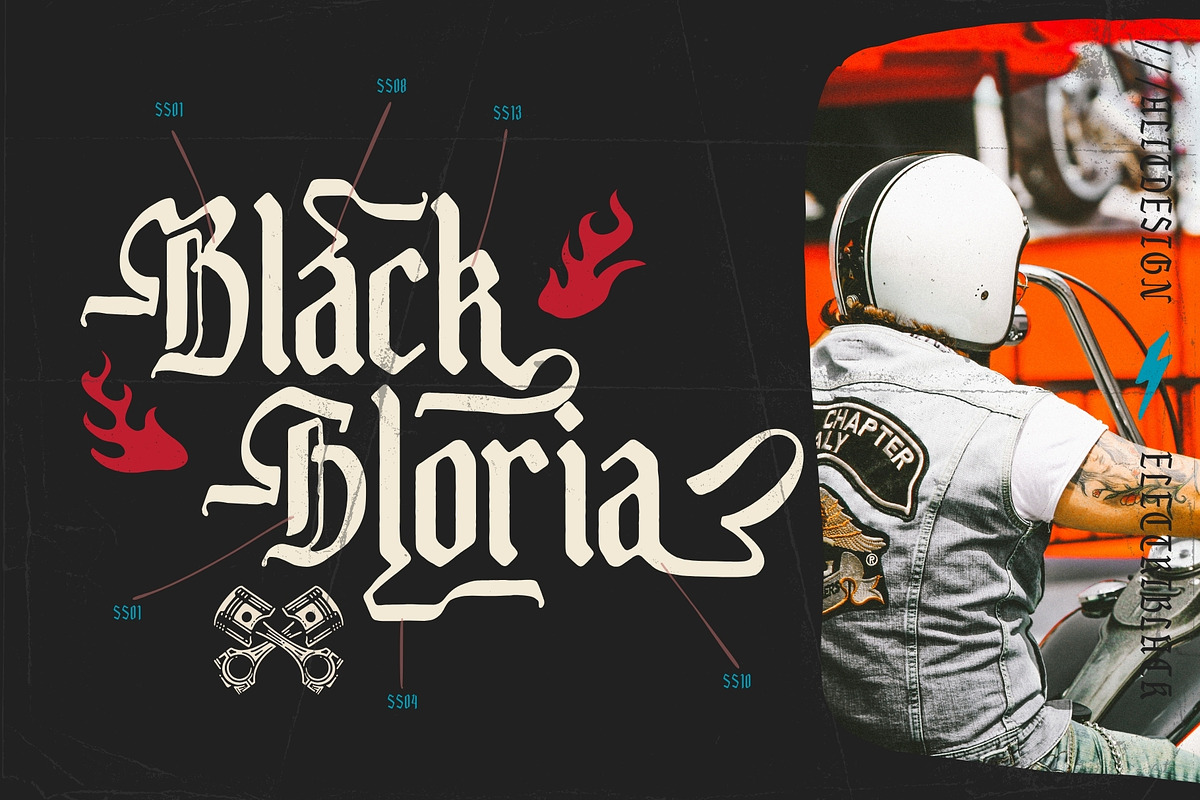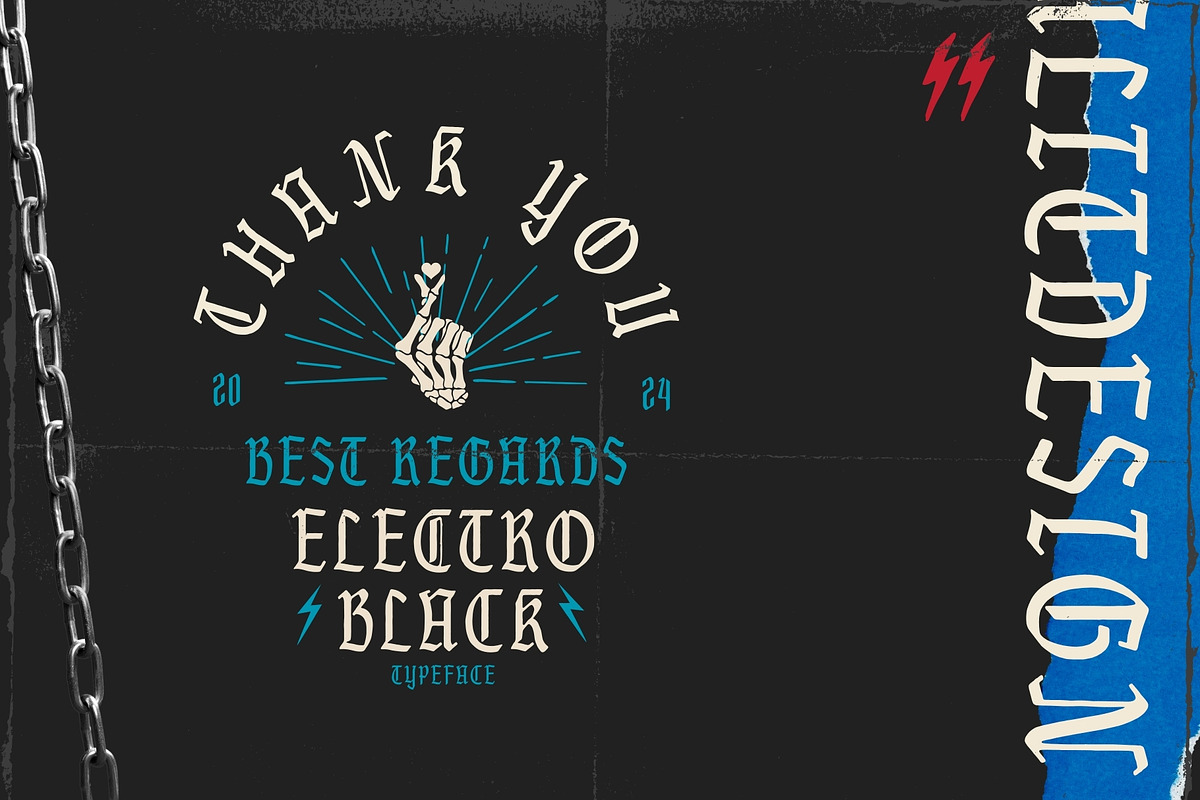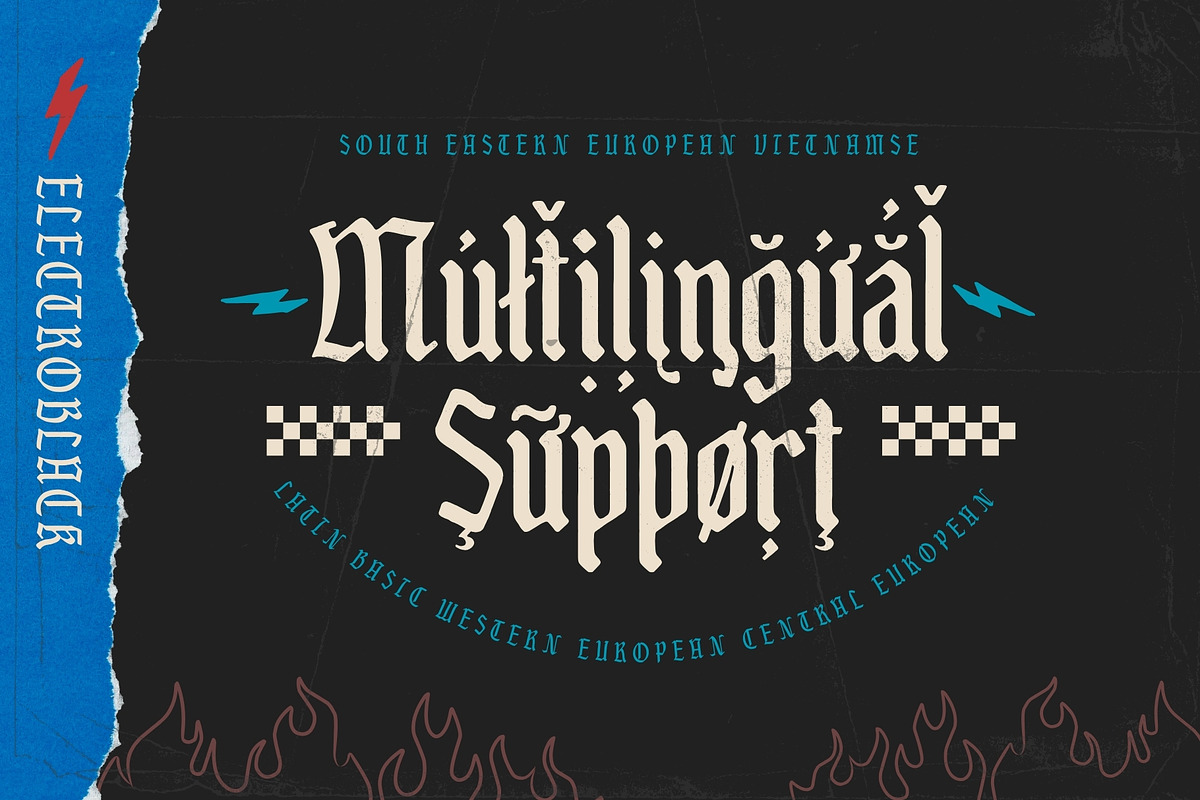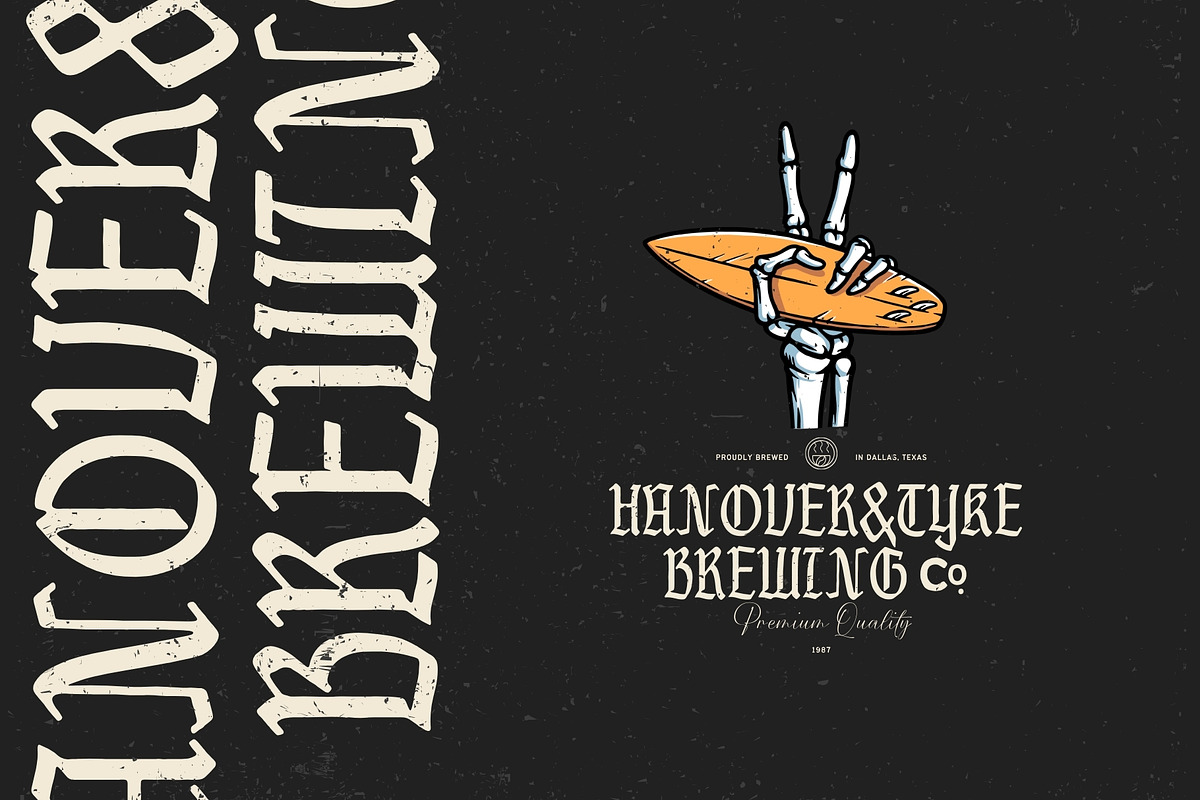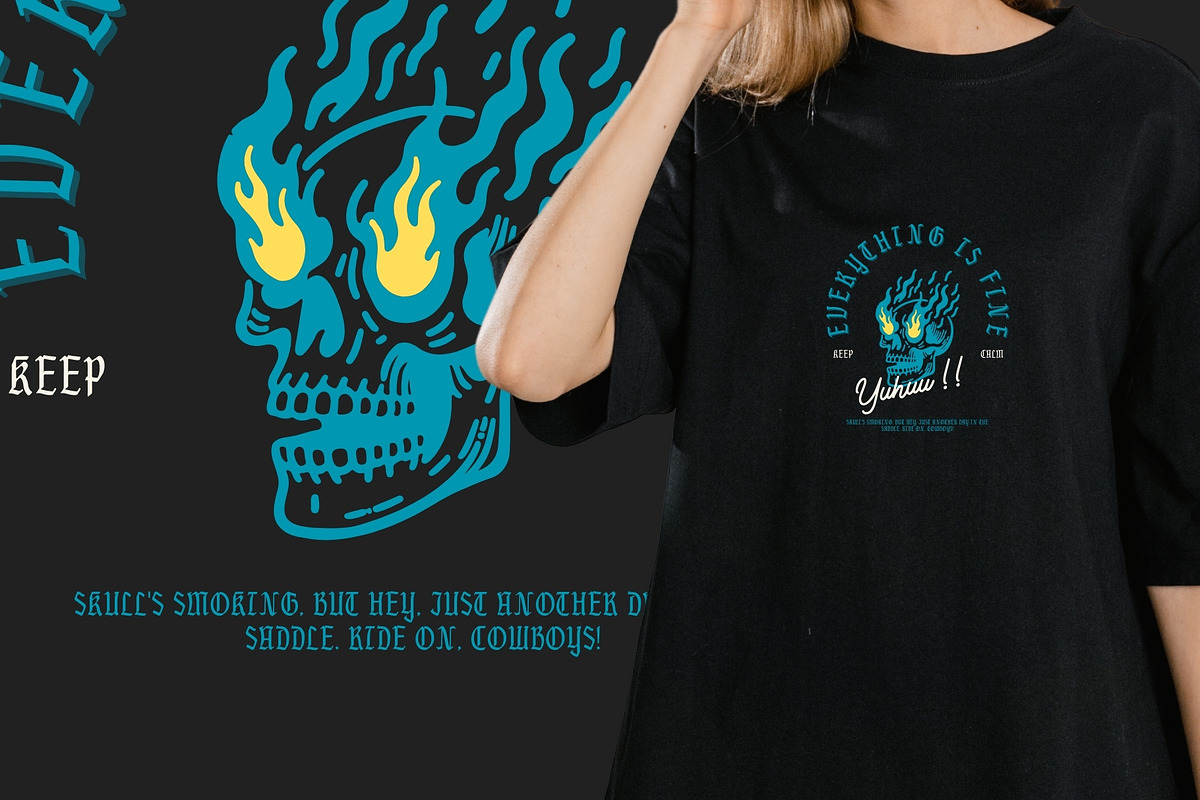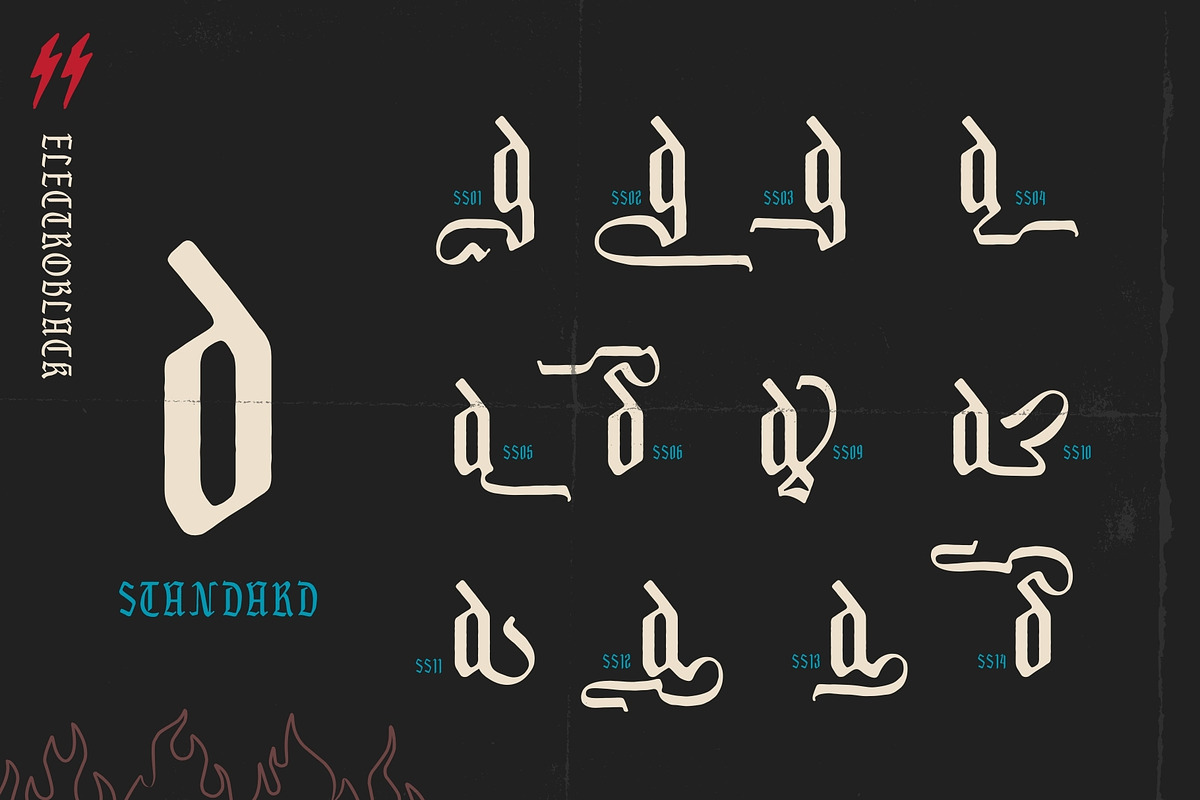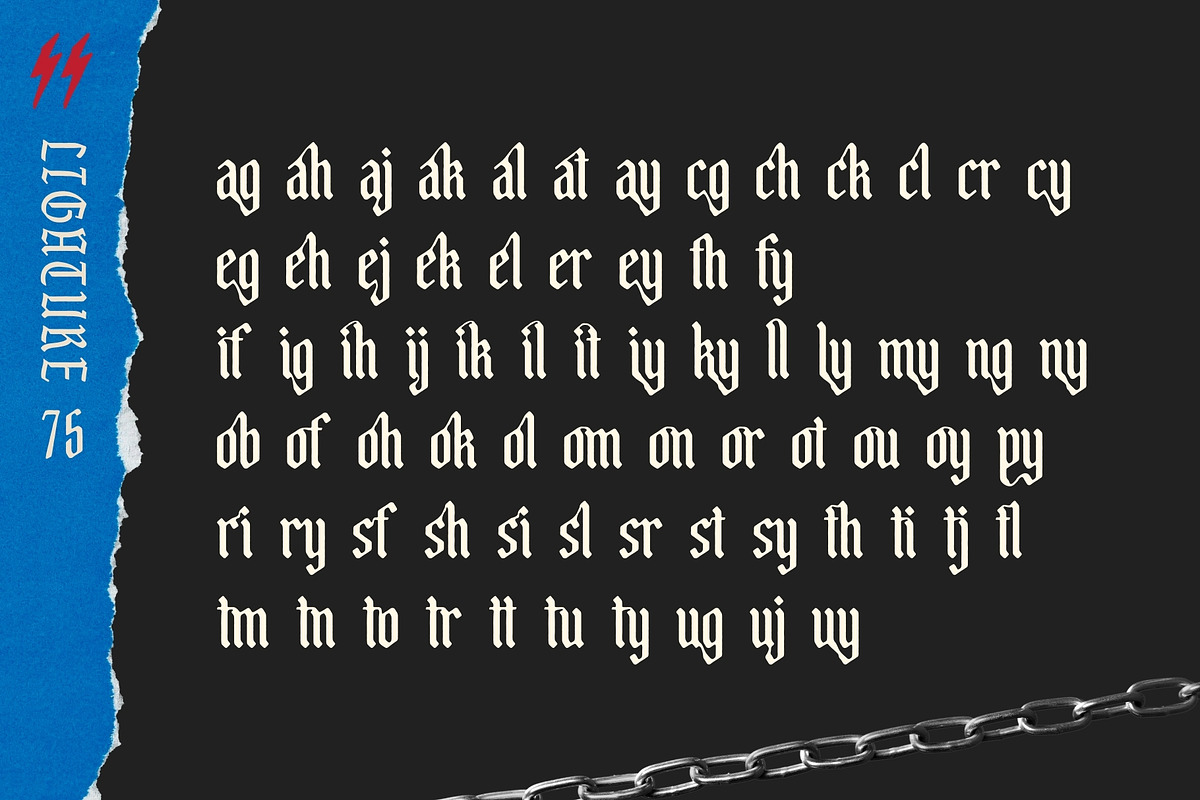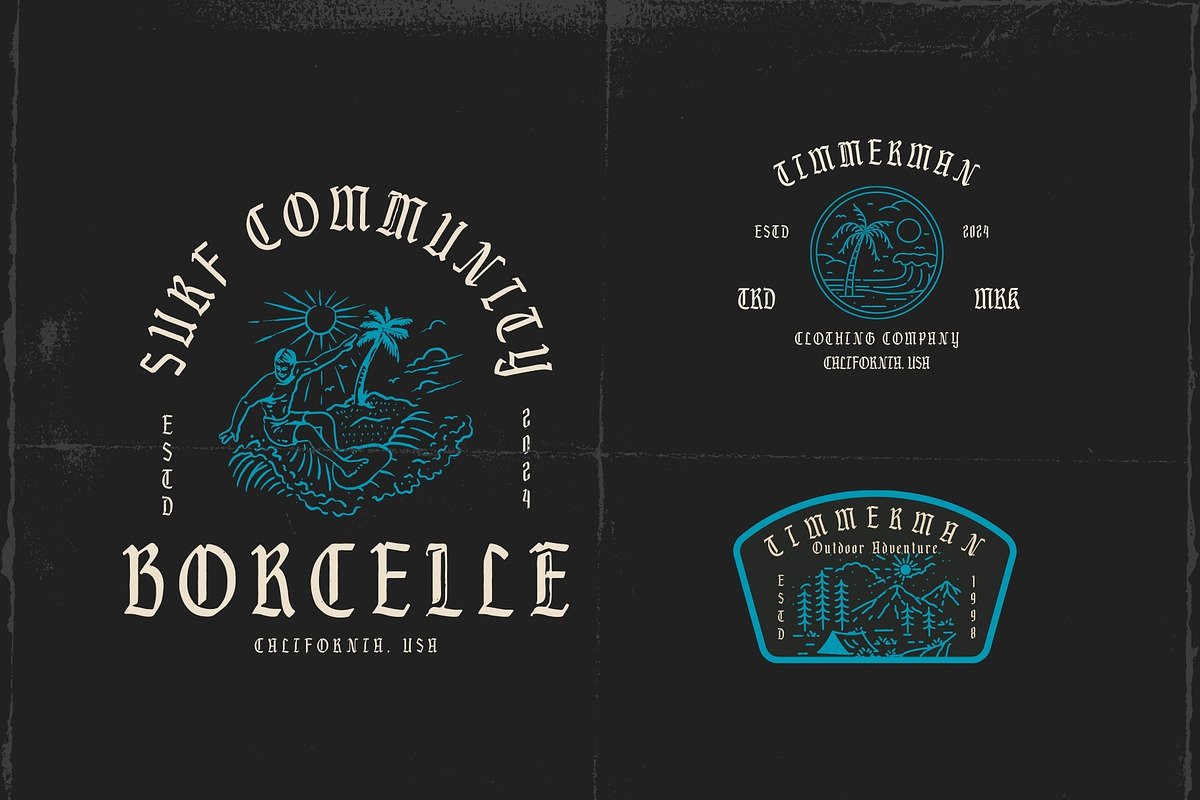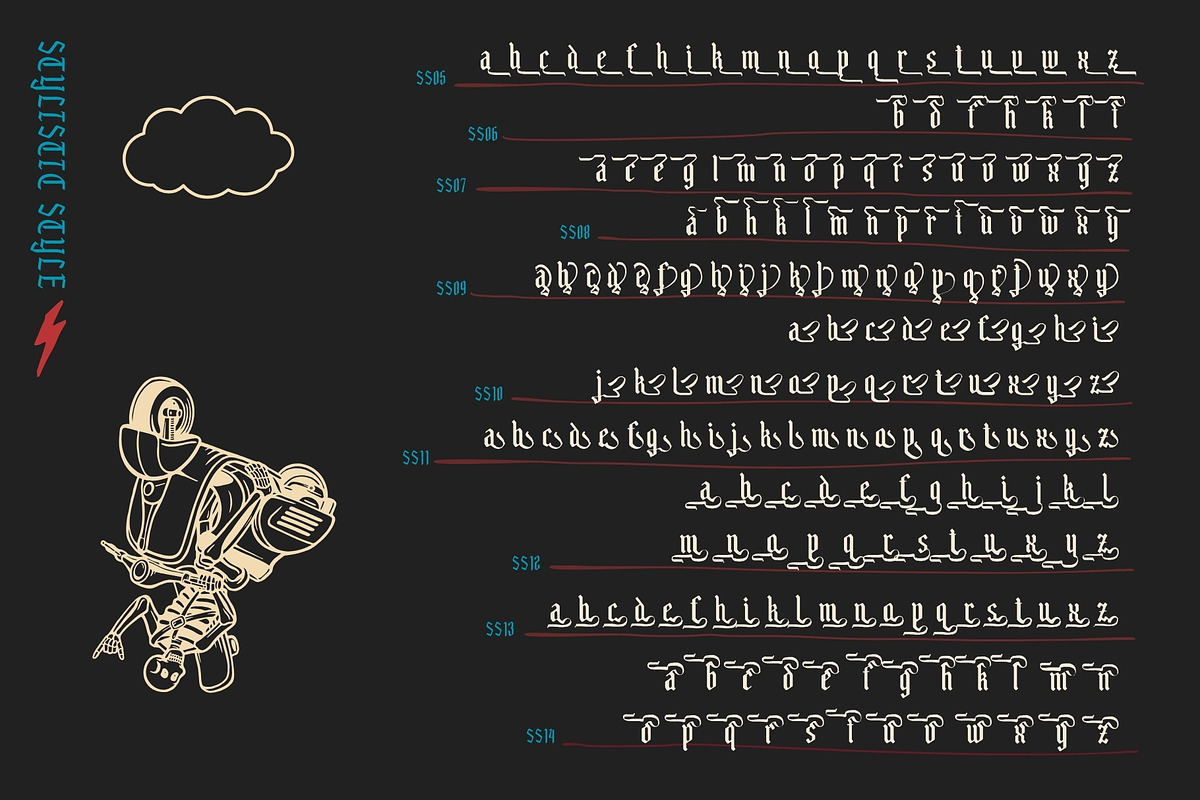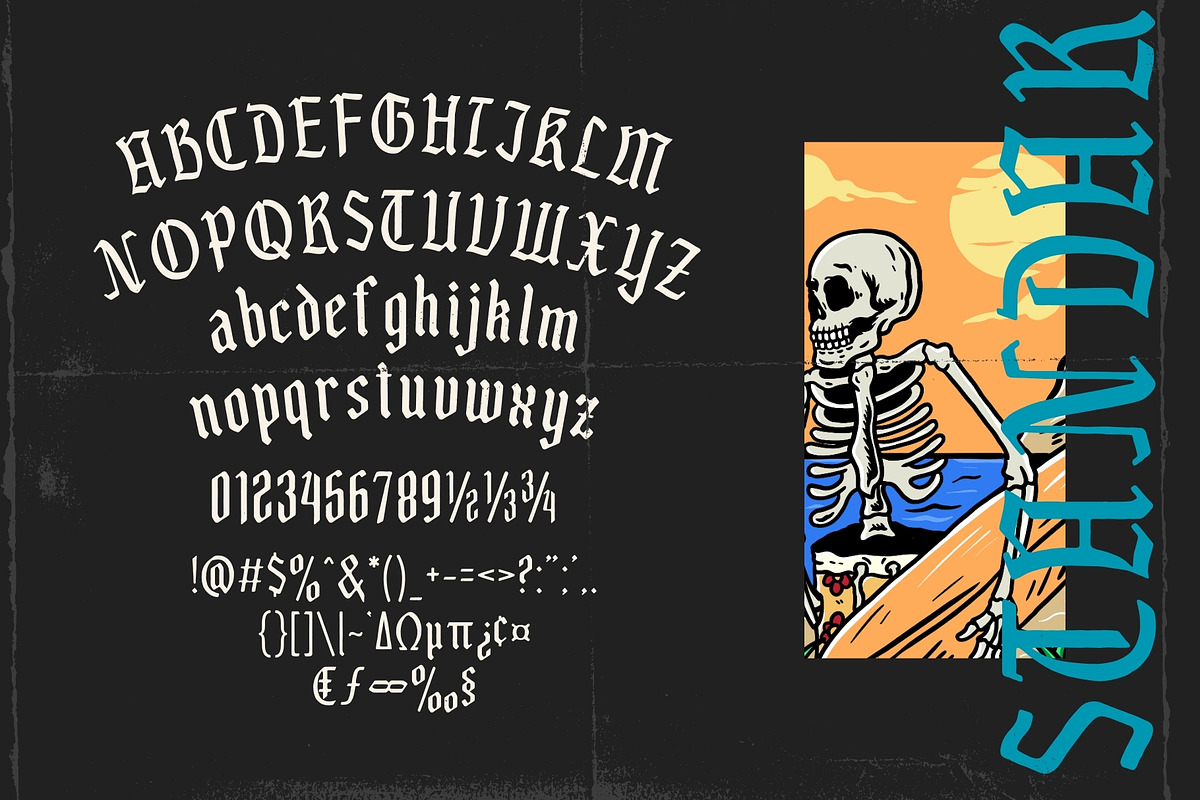
Electro Black Vintage Blackletter
Introducing Electro Black Vintage Blackletter—an electrifying blend of vintage elegance and rugged blackletter aesthetics. Perfect for designers looking to capture the timeless beauty of classic typography with a modern twist, this font features a distinctive old-style flair that evokes the charm of medieval script but with a rough, edgy finish.
With 900 meticulously crafted characters, Electro Black Vintage Blackletter offers versatility through a rich set of ligatures and stylish swashes, allowing for a dynamic and seamless design experience. Whether you're creating posters, logos, packaging, or apparel, this font is your go-to choice for projects needing a bold, vintage touch that commands attention.
Perfect for any branding or creative project that aims to stand out while embracing the spirit of history. Get ready to transform your typography with Electro Black Vintage Blackletter—where rough meets refined, and vintage meets electrifying design!